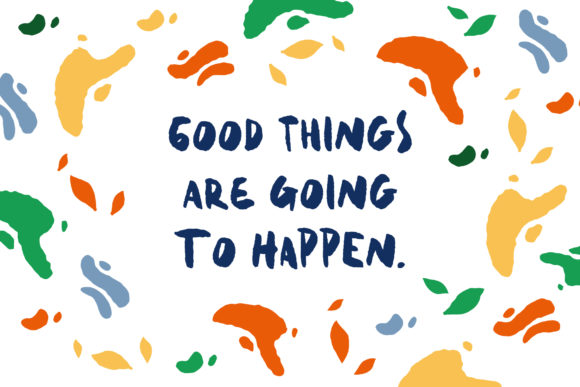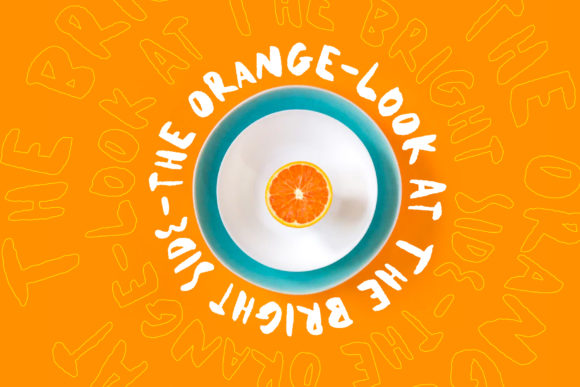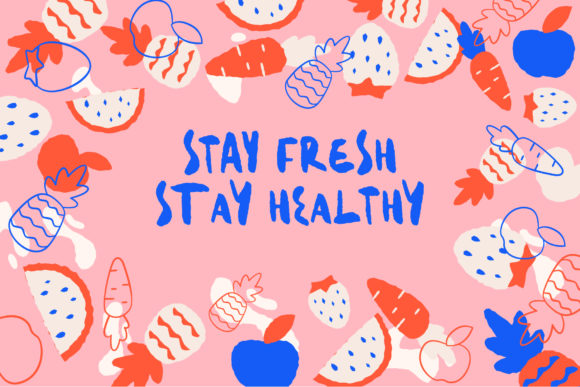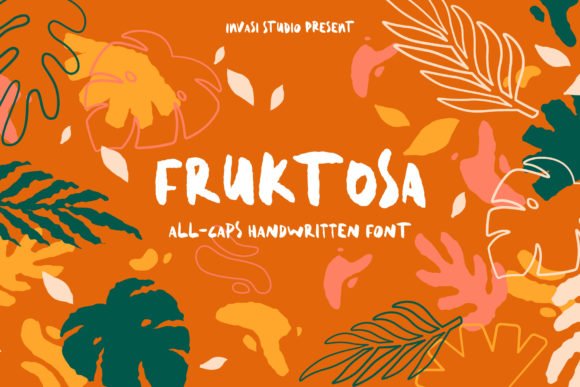
Introduction to Fruktosa Font
Fruktosa is an incredibly unique and interesting display font.
Thick lettered yet playful, this font matches a wide range of trendy designs .
Fruktosa Font offers exceptional quality and versatility, making it a valuable addition to your design toolkit. Whether you’re creating for personal projects or commercial use, Fruktosa Font delivers professional results.